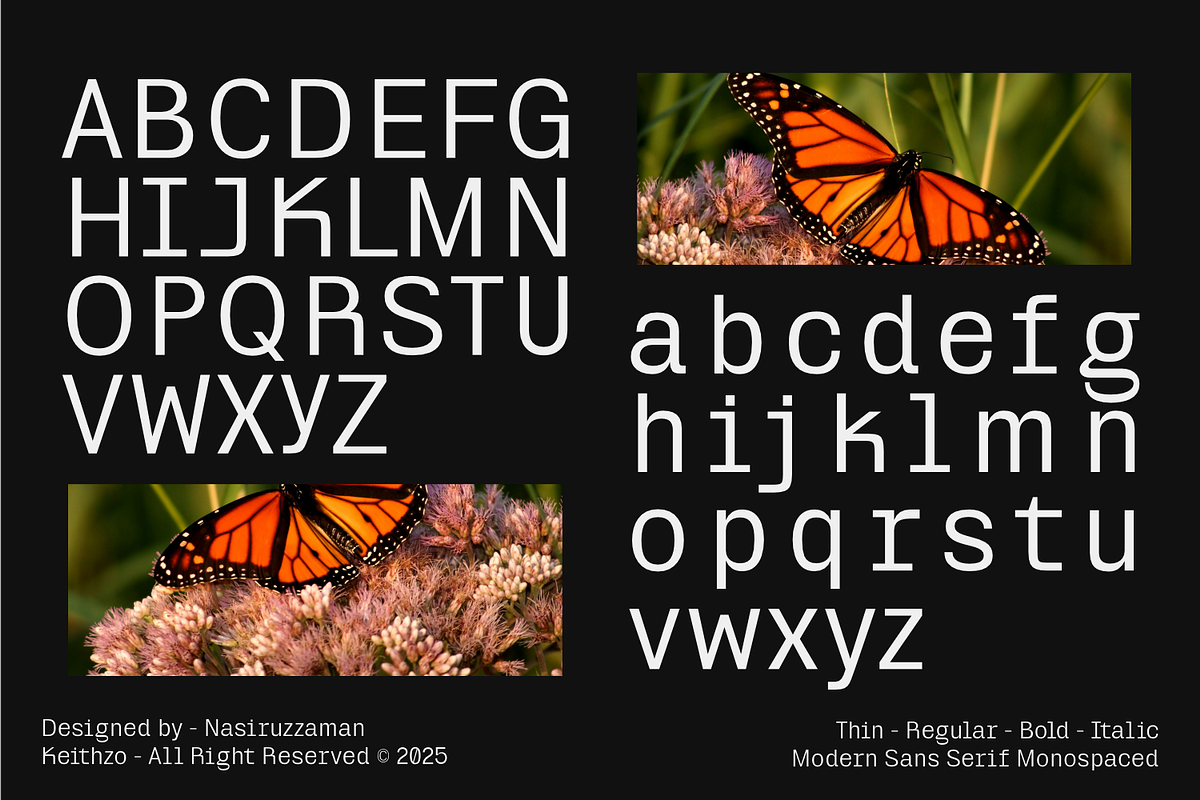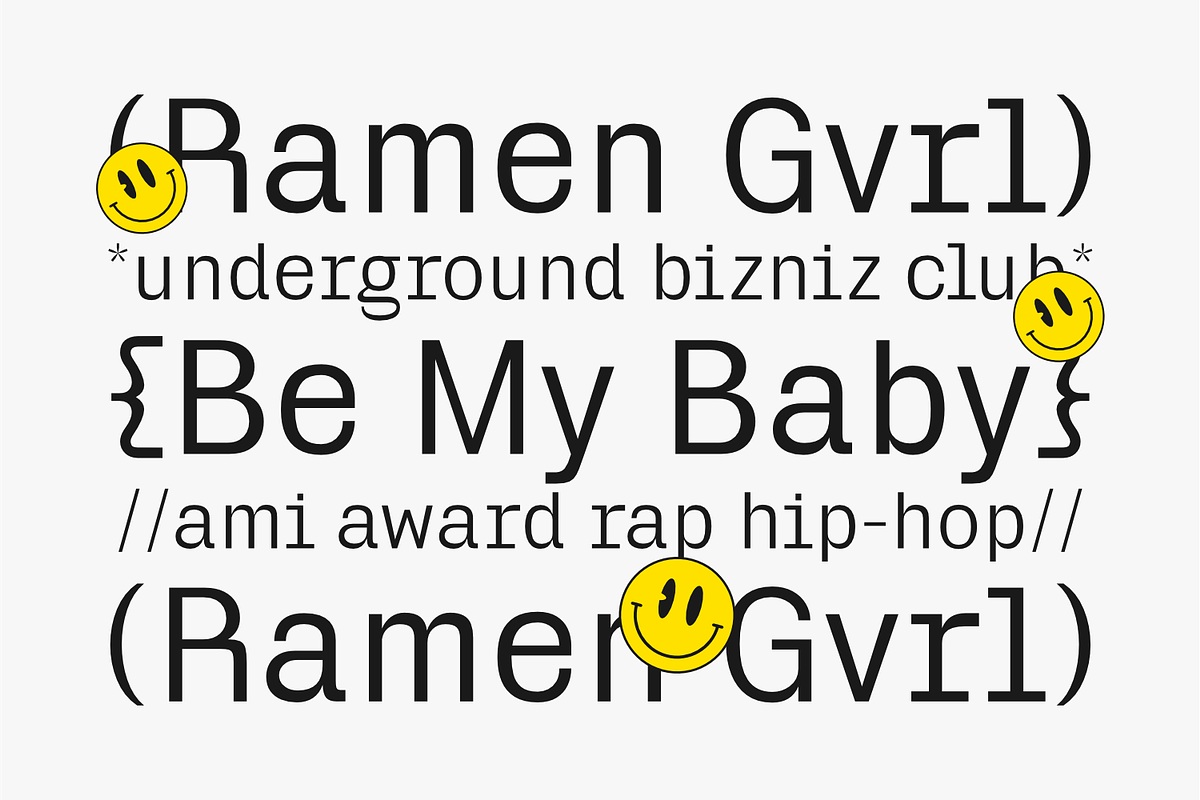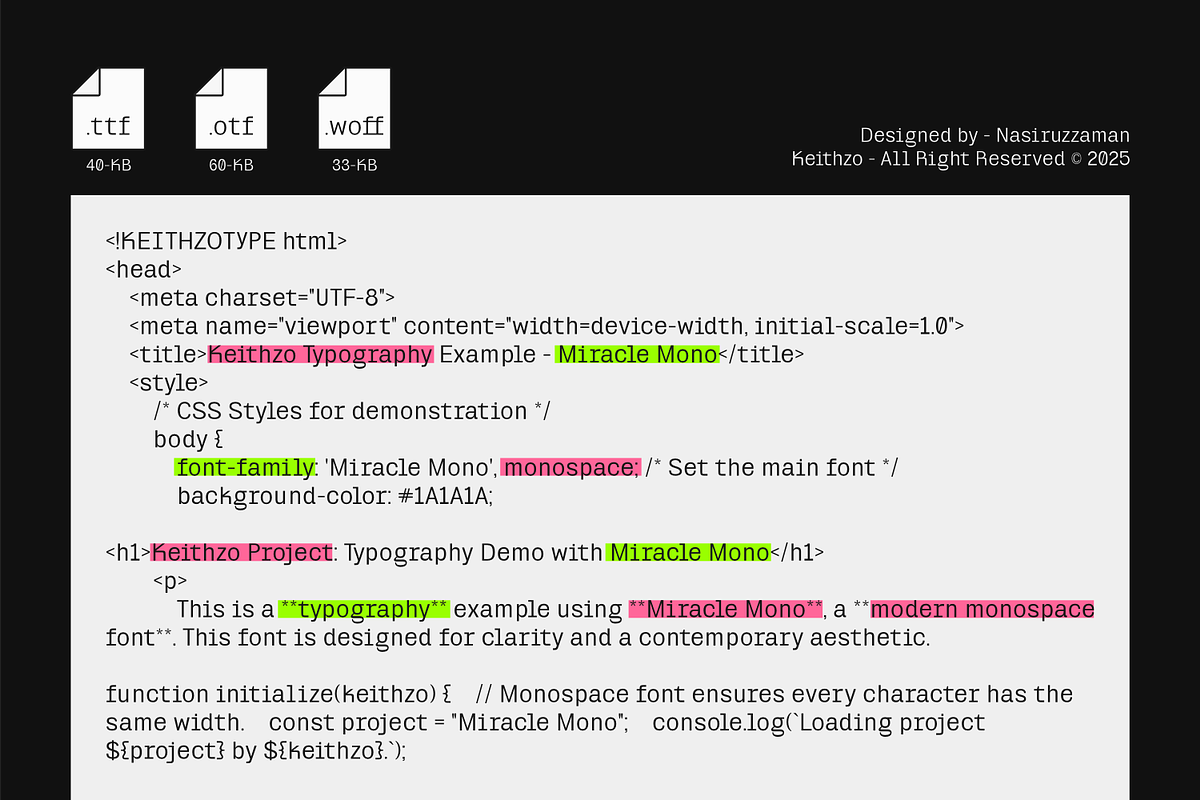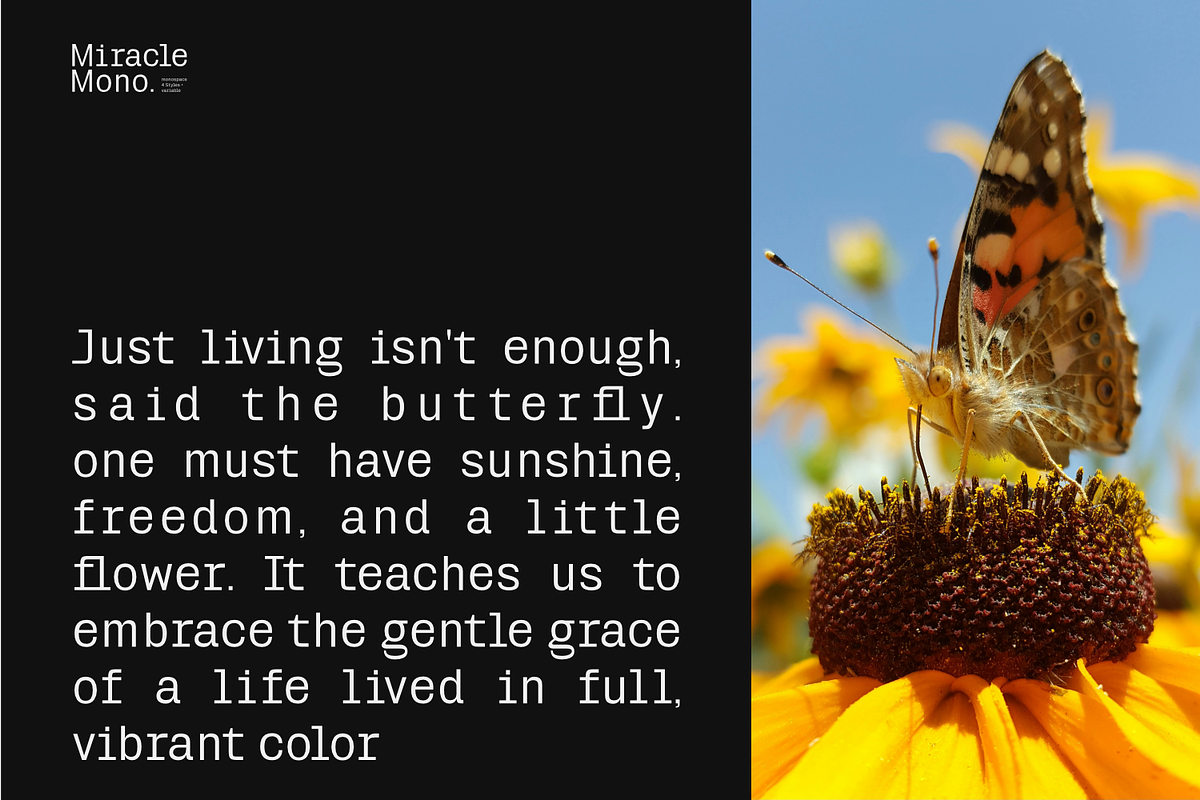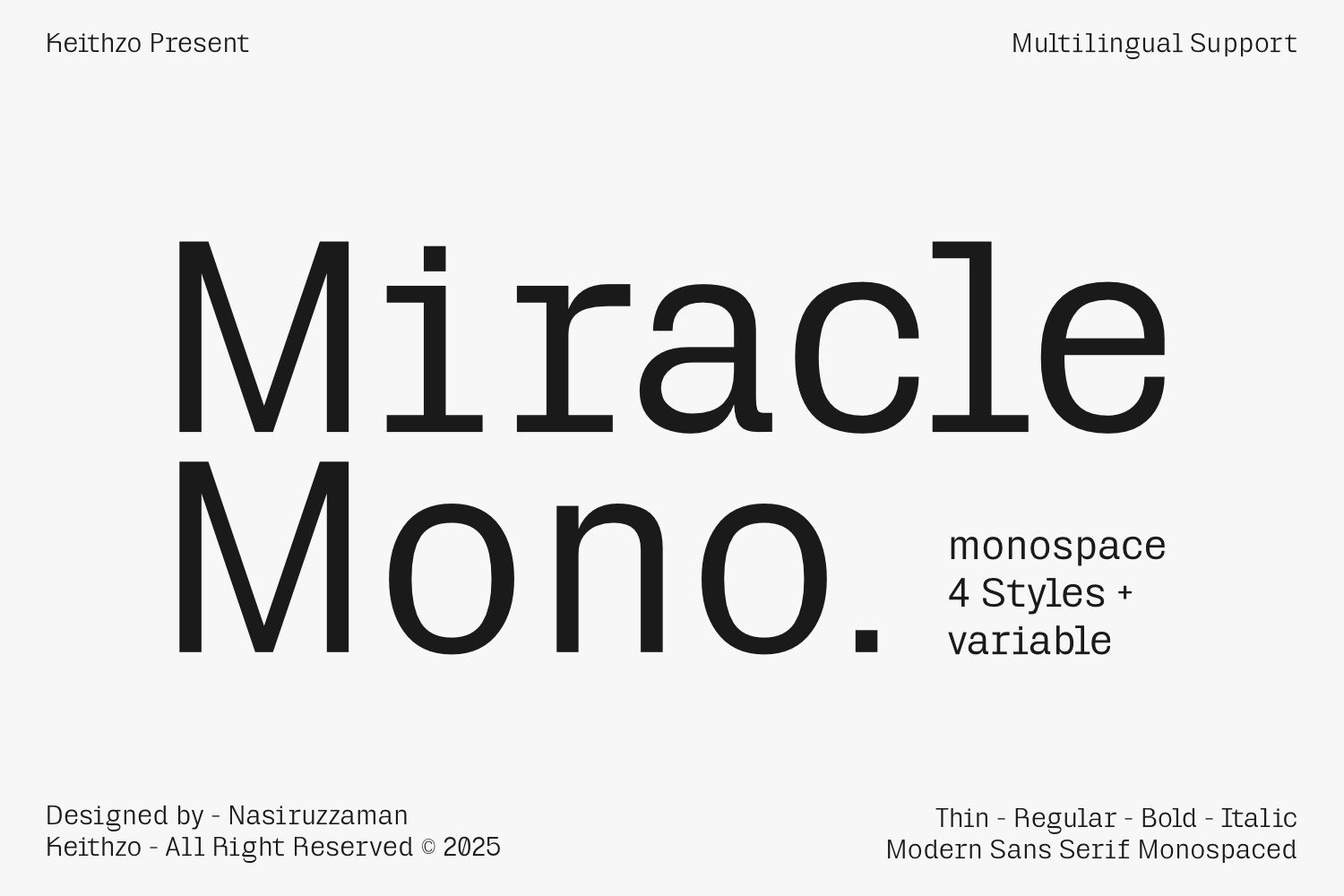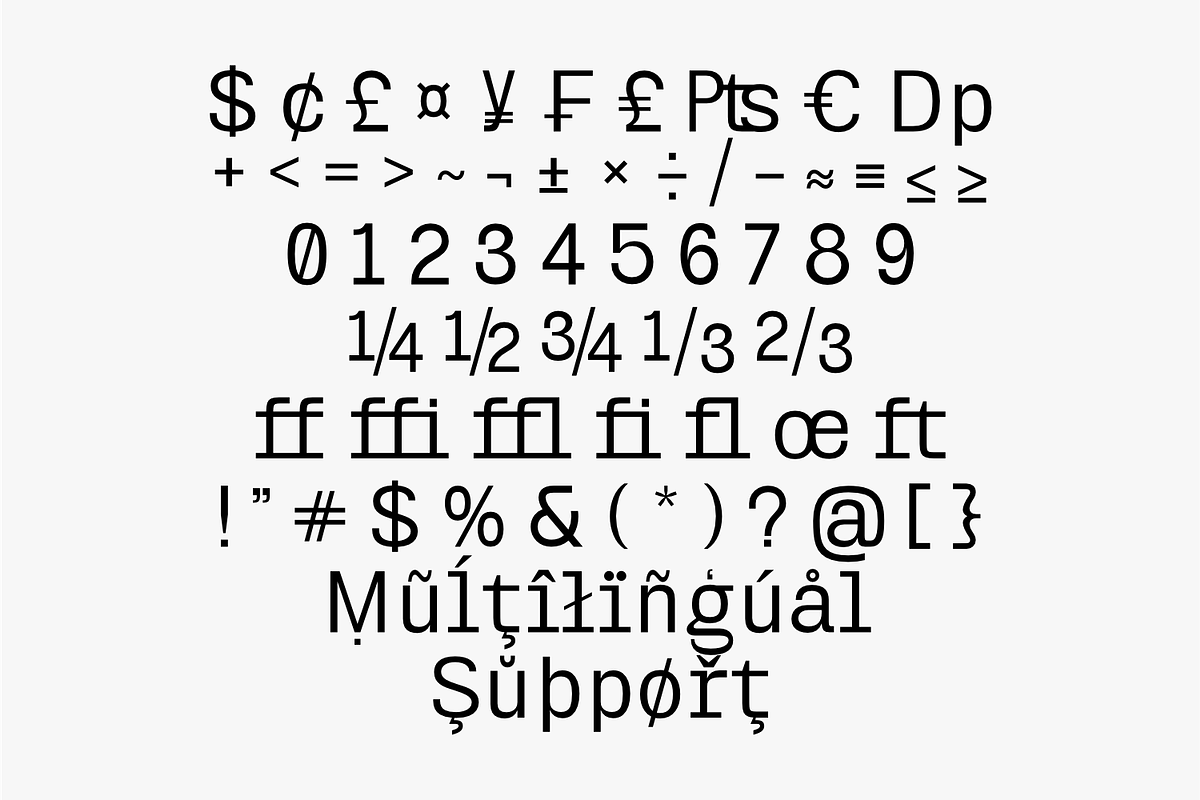
Miracle Mono - Sans Serif Font
Unveiling Miracle Mono – the epitome of multifaceted magnificence and chic modernity, tightly sealed within the charms of a monospaced font. Its striking communion of clear functionality with cutting-edge creativity makes it an irresistible allure for pioneering coders, avant-garde designers, and minimalism aficionados in pursuit of a powerful, yet simplified aesthetic. This typeface is a tasteful departure from its conventional monospaced ancestors styled after typewriters, offering instead a smooth San Serif design that gracefully straddles the worlds of coding and urbane graphic design. Miracle Mono proudly features a versatile quartet of standard styles – Thin, Regular, Bold, and Italic, augmented by a variable font choice for boundless weight adjustments, thus providing an unrestricted playground for your creative instincts.